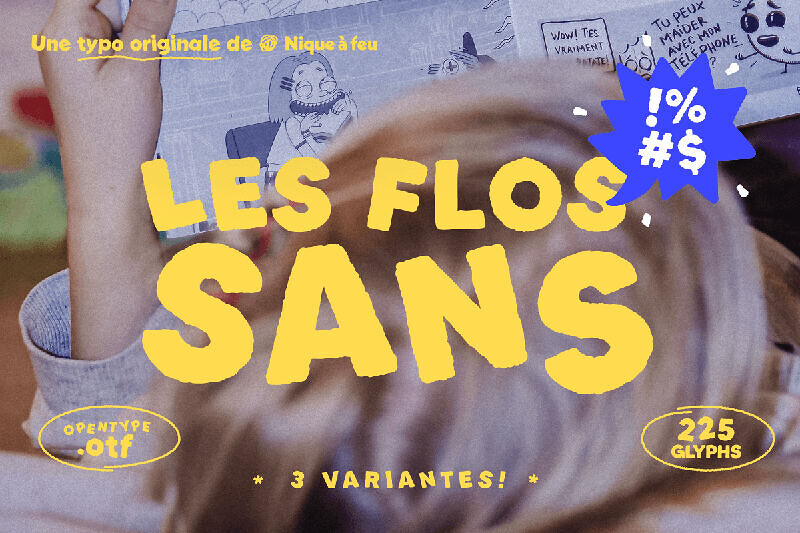
Directly inspired by the wild world of the Quebecois book-game of the same name, the Les Flos typeface captures the essence of a hybrid between a fanzine and a youth comic. Designed to push boundaries, it reflects a “left-field” aesthetic that is playful, cheeky, and joyfully irreverent.
It is the perfect choice to inject creative energy and a touch of madness into your graphic projects, while maintaining a dynamic visual approach that celebrates the infinite possibilities of the comic book medium. Les Flos includes three styles that shift from structured to chaotic: one clean and readable, one looser with irregular shapes, and one highly distorted with expressive lettering that embraces a raw, rebellious aesthetic.